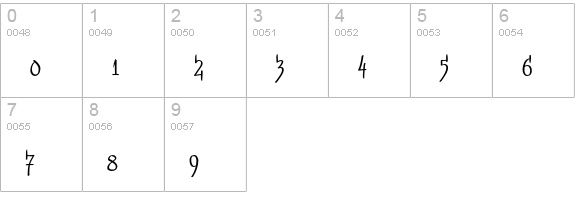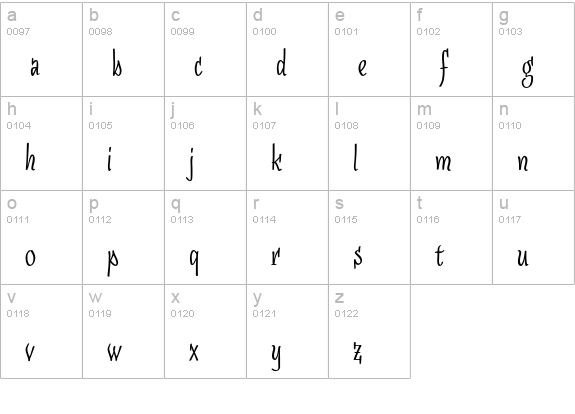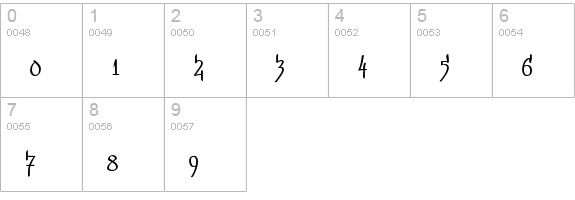
SudegnakNo3 Font Details
SudegnakNo3 font is a striking and versatile typeface that captures attention with its unique and captivating design. It is perfect for adding a touch of elegance and sophistication to any project, whether it be a logo, branding, or editorial design. With its sleek and modern appearance, SudegnakNo3 font effortlessly combines sharp angles with fluid curves, creating a harmonious balance that is pleasing to the eye. Its bold and confident letterforms make a statement, while still maintaining legibility and readability. One of the most remarkable features of SudegnakNo3 font is its versatility. It can adapt to various design styles, from minimalistic and clean to bold and expressive. This flexibility allows designers to unleash their creativity and bring their visions to life. And the best part? SudegnakNo3 font is available for free! That's right, you can download this stunning typeface without spending a penny. Simply head over to FontsMarket.com, where it is freely available for you to download and use in your personal and commercial projects. Whether you're a professional designer or a creative enthusiast, SudegnakNo3 font is a must-have addition to your font library. Its timeless appeal and remarkable versatility make it an excellent choice for a wide range of design projects. So why wait? Download SudegnakNo3 font today and let your creativity soar.